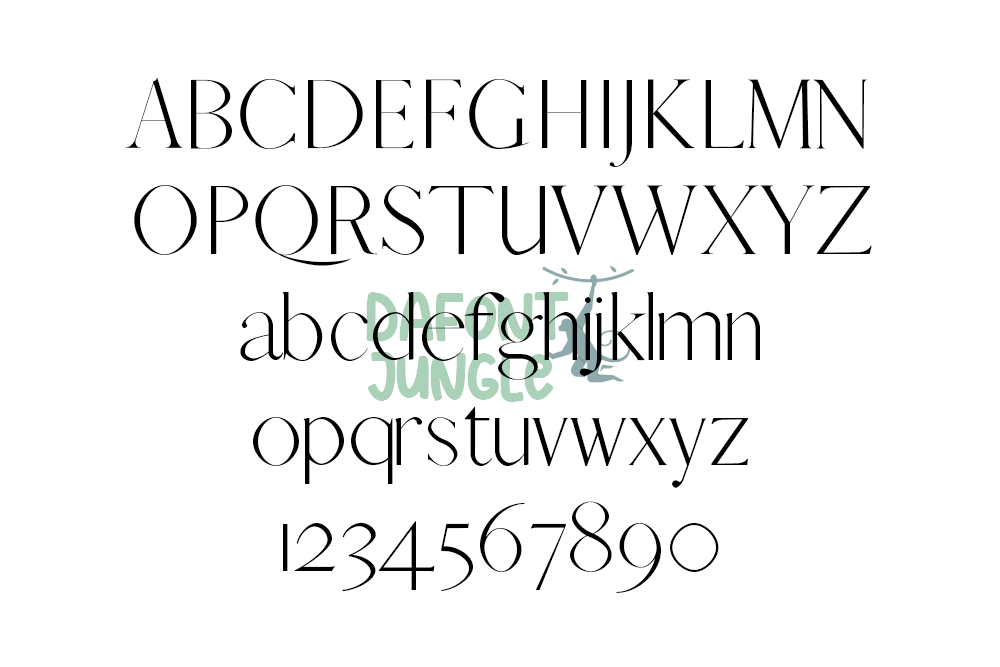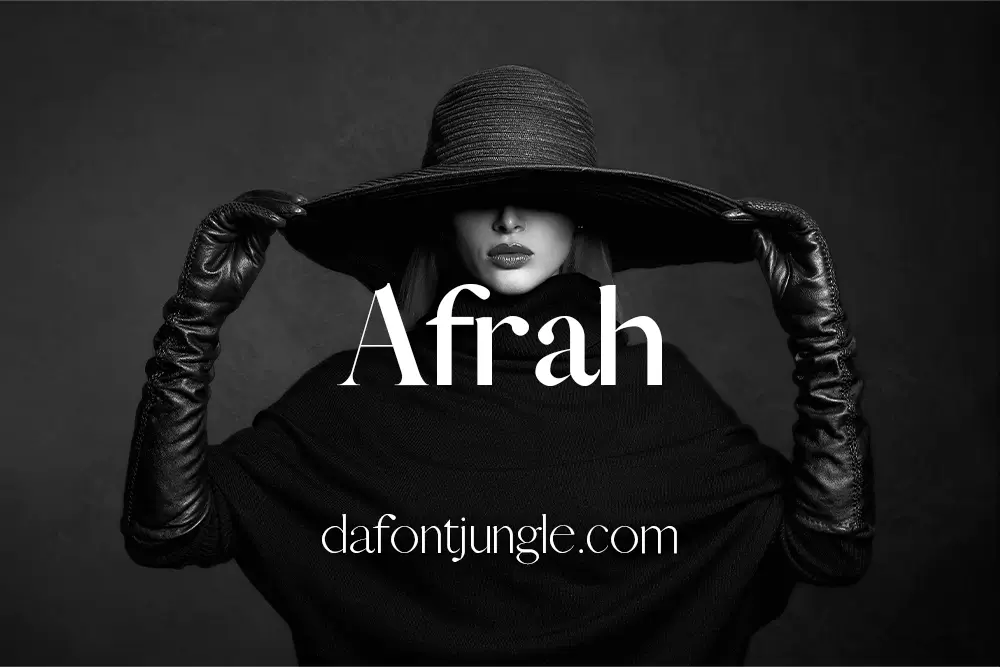
Afrah Family – Elegant Serif Font in 5 Weights
Afrah is a clean and elegant serif font family with a modern touch. It includes five weights—Regular, Bold, Light, Thin, and Round—giving you plenty of flexibility for different styles and layouts.
This versatile font works well for headlines, branding, logos, packaging, and more. Whether you’re designing for print or digital, Afrah delivers a polished and professional look.
Font Weights Included
– Regular
– Bold
– Light
– Thin
– Round